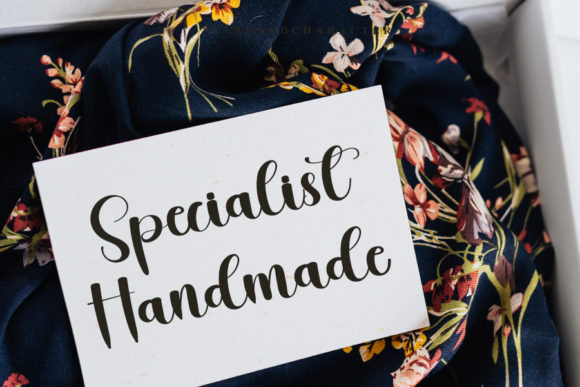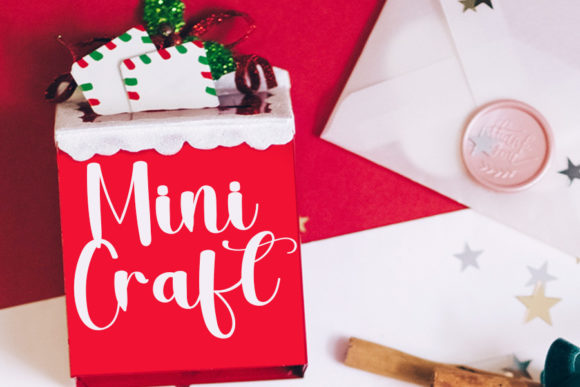
Springs Font
db-ku.com - Script & Handwritten -- Springs is a beautiful and refined script font. It has a classy, elegant, and modern look that can be used for logos, branding, invitations, stationery, wedding designs, social media posts, and much more!